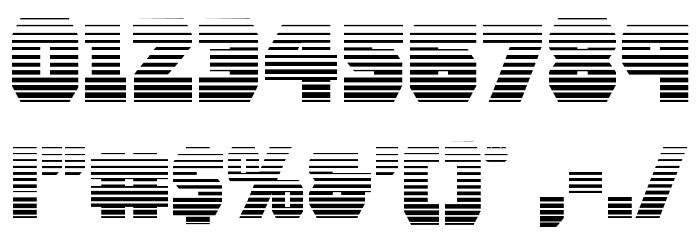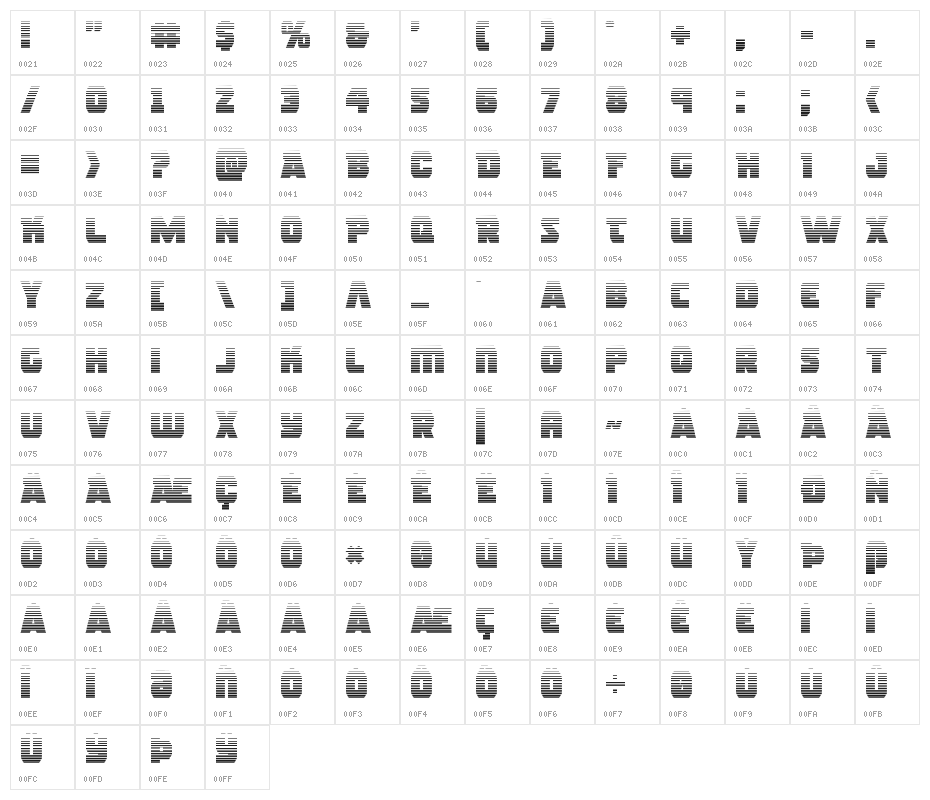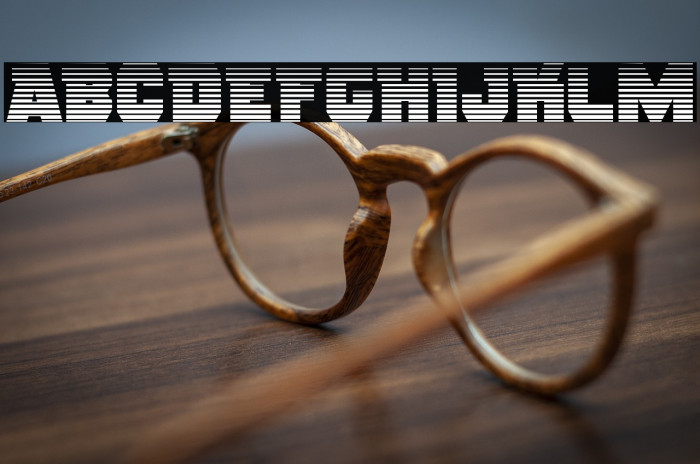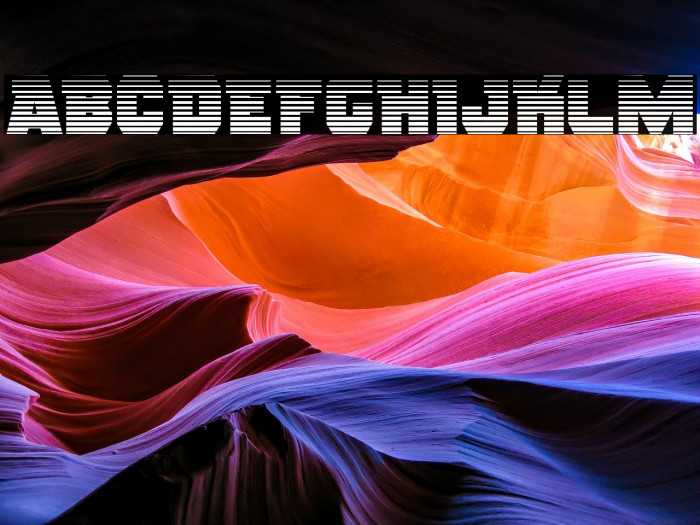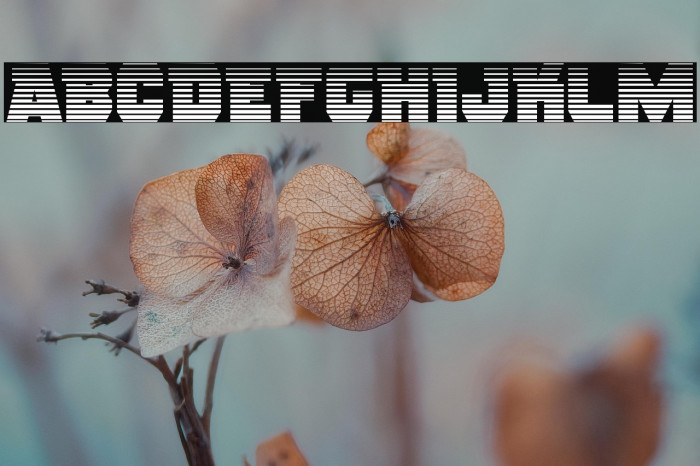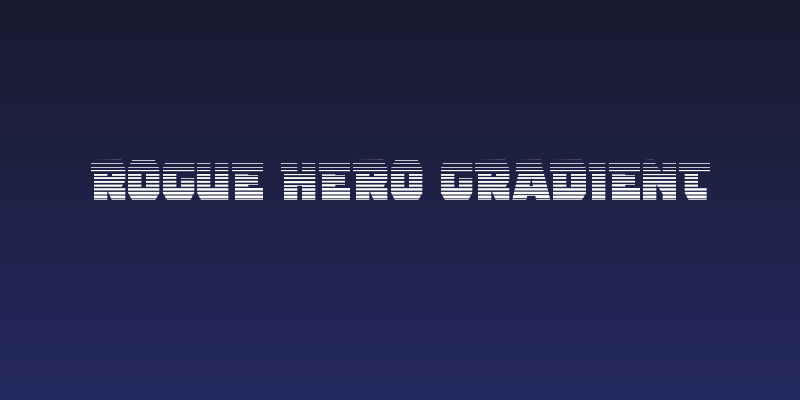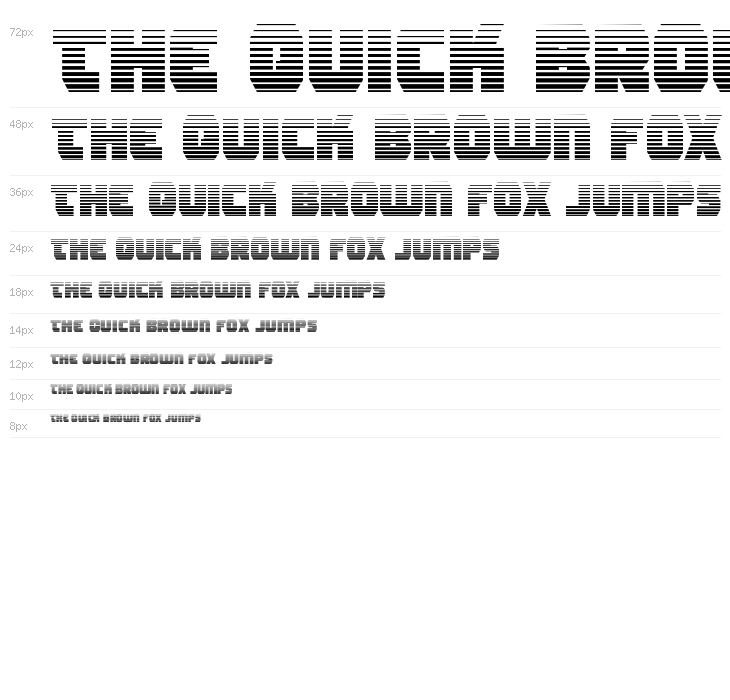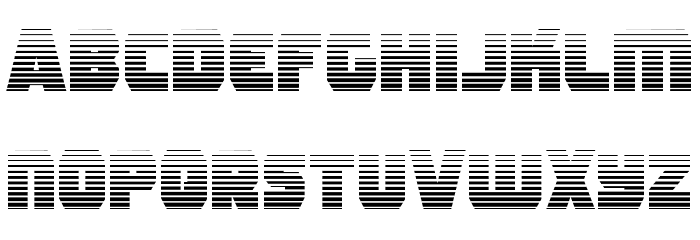
Rogue Hero Gradient Font
Rogue Hero Gradient Description
This font features a bold, geometric design with a unique horizontal line pattern running through each character, creating a striking gradient effect. The uppercase and lowercase letters are consistent in style, maintaining a strong, cohesive look. The numerals and special characters follow the same design principles, ensuring uniformity across all glyphs. The font's distinct appearance makes it ideal for attention-grabbing designs, offering a modern and futuristic vibe. Its structured form and bold presence make it suitable for impactful headlines and logos.
Proposed ProjectsIdeal for futuristic branding, tech-related designs, and eye-catching headlines.